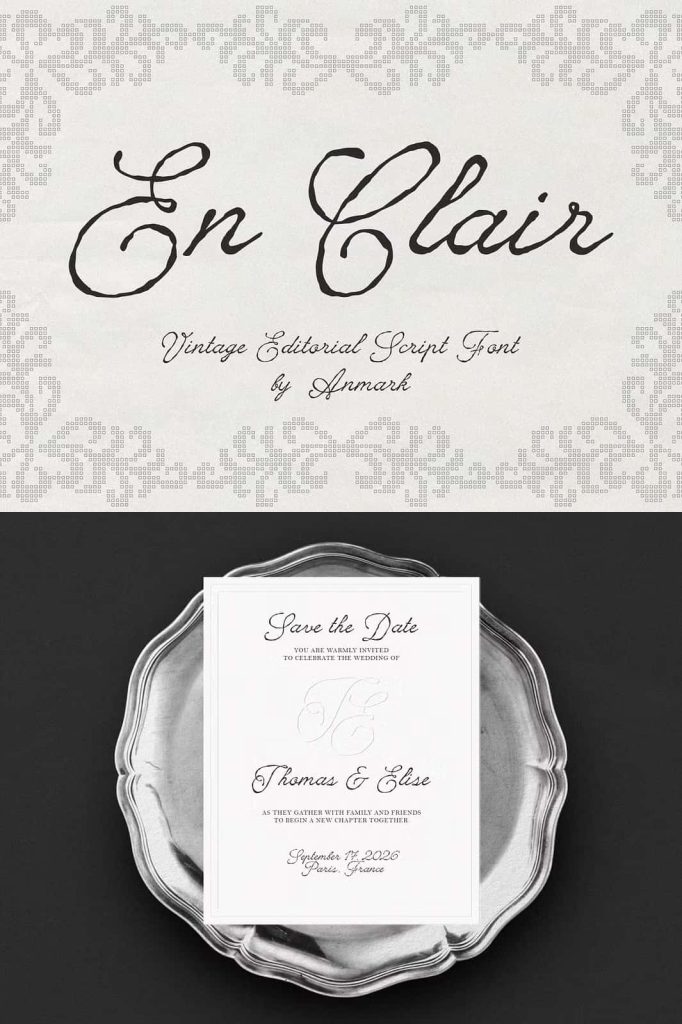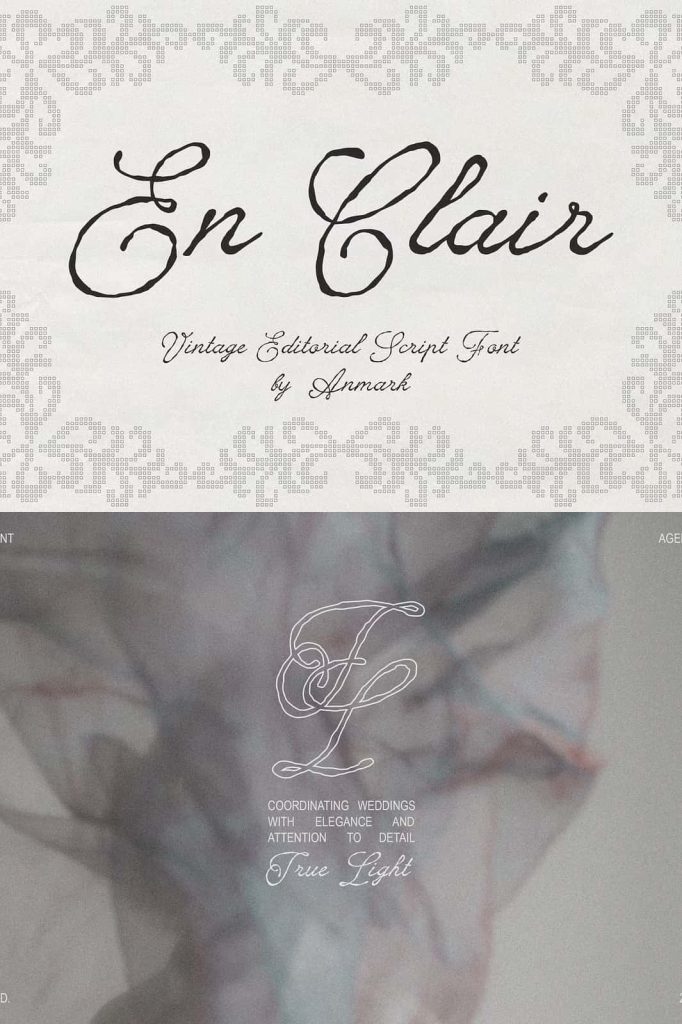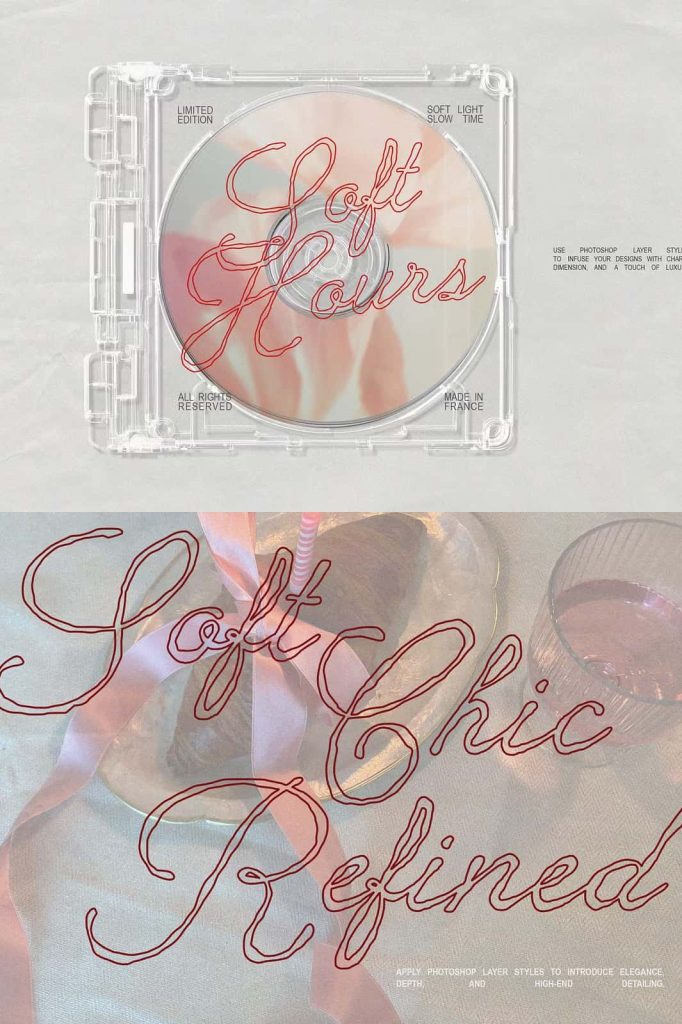
En Clair Vintage Script Font: Elegant Calligraphy with Timeless Luxury
En Clair vintage script font delivers a refined blend of elegance, sophistication, and handcrafted beauty. This typeface captures the essence of classic calligraphy while introducing a modern sense of luxury. With its flowing strokes and textured finish, En Clair transforms typography into an expressive visual experience that feels both timeless and distinctive.
Designed to elevate creative projects, En Clair brings a graceful and polished aesthetic to every composition. It allows designers to create work that feels intentional, emotional, and visually rich. Whether used for formal occasions or high-end branding, this font provides a powerful foundation for elegant design.
Hand-Crafted Texture with Unique Character
En Clair stands out through its carefully crafted texture. Each character carries subtle variations that reflect the natural movement of hand lettering. This texture adds depth and personality, making the font feel authentic rather than mechanical.
The handcrafted quality ensures that no two letters feel identical. This variation creates a more organic and engaging appearance, helping your designs stand out with a sense of individuality and artistry.
Add Depth and Authenticity to Typography
The textured details enhance the overall visual richness of the font. They create a layered effect that adds dimension without overwhelming the design. This allows designers to achieve a refined look while maintaining clarity and readability.
By using En Clair, you can introduce a handcrafted touch that elevates the emotional impact of your work.
Flowing Calligraphy Style for Elegant Expression
En Clair features a smooth and flowing calligraphy style that creates a natural rhythm across the text. The graceful connections between letters guide the viewer’s eye, improving readability while enhancing visual appeal.
This fluid movement makes the font ideal for decorative and expressive typography. It allows designers to craft compositions that feel cohesive and balanced, even in more complex layouts.
Create Graceful and Harmonious Designs
The consistent flow of the script helps maintain a harmonious composition. It ensures that each word connects seamlessly, creating a unified and polished appearance.
Designers can use this quality to build elegant layouts that feel both structured and artistic.
Perfect for Wedding and Romantic Designs
En Clair excels in projects that require a romantic and sophisticated tone. Its elegant style makes it an ideal choice for wedding invitations, bridal stationery, and save-the-date cards. The font adds a personal and meaningful touch to these special occasions.
Its refined appearance enhances the overall presentation, making each design feel more intimate and memorable. It helps communicate emotion and celebration through typography alone.
Enhance Special Moments with Elegant Typography
Using En Clair, designers can create designs that feel unique and heartfelt. The calligraphy style adds a sense of care and attention, making each piece more impactful.
This makes the font a valuable tool for projects that aim to capture important moments and emotions.
Ideal for Editorial, Fashion, and Luxury Branding
En Clair adapts seamlessly to editorial layouts, fashion branding, and lifestyle publications. Its sophisticated design enhances magazine headlines, product packaging, and promotional materials. The font communicates quality and elegance, making it suitable for premium brands.
Its timeless style ensures that it remains relevant across different trends. Designers can rely on En Clair to deliver a consistent and polished look in high-end design projects.
Build a Luxurious Visual Identity
By incorporating En Clair into your branding, you can establish a strong and recognizable identity. The font’s elegant characteristics help convey sophistication and attention to detail.
This strengthens brand perception and creates a lasting impression on your audience.
Versatile Across Print and Digital Applications
En Clair performs beautifully in both print and digital formats. Its clear structure and refined details ensure readability across various sizes and resolutions. Whether used on invitations, websites, or packaging, the font maintains its elegance and impact.
This versatility allows designers to use the font confidently across different platforms, ensuring consistency in style and quality.
Maintain Consistency and Style
The cohesive design of En Clair helps unify different elements within your projects. It ensures that your typography remains consistent, enhancing the overall visual experience.
This reliability makes it easier to create professional and polished designs.
Why Choose En Clair Vintage Script Font?
En Clair vintage script font offers a perfect combination of elegance, texture, and versatility. Its handcrafted details, flowing calligraphy, and luxurious style make it an excellent choice for designers who want to create refined and expressive typography.
By choosing En Clair, you gain a typeface that enhances both visual appeal and emotional connection. It allows you to produce designs that feel timeless, sophisticated, and memorable. For weddings, branding, editorial work, and luxury projects, En Clair delivers exceptional and inspiring results.